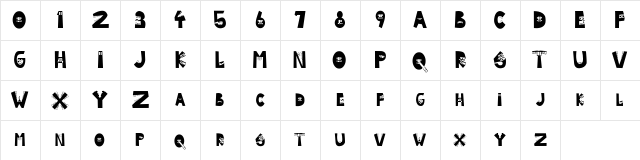
Byte Caps
Style: Caps
Design Context for Byte
Byte is a composed and adaptable typeface that performs quietly and consistently across a wide range of design contexts.